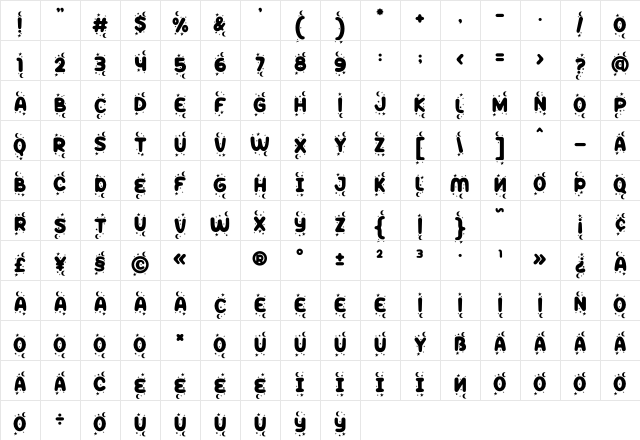
Peppy Pegasus Moon Star Free Font
Peppy Pegasus Moon Star
Style: Moon Star
Foundry: Putracetol Studio, Karanganyar.
Designer: Putra Novembria Candra Kusuma
Complete Peppy Pegasus Moon Star glyph index. Displaying only characters natively supported by Peppy Pegasus Moon Star font.
Design Context for Peppy Pegasus
Peppy Pegasus is a composed and adaptable typeface that performs quietly and consistently across a wide range of design contexts.